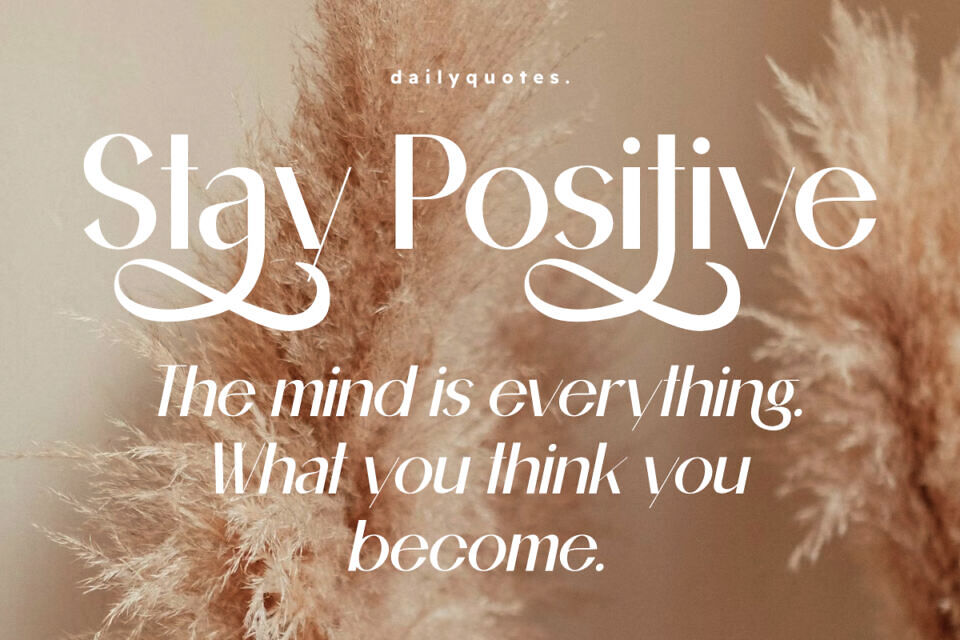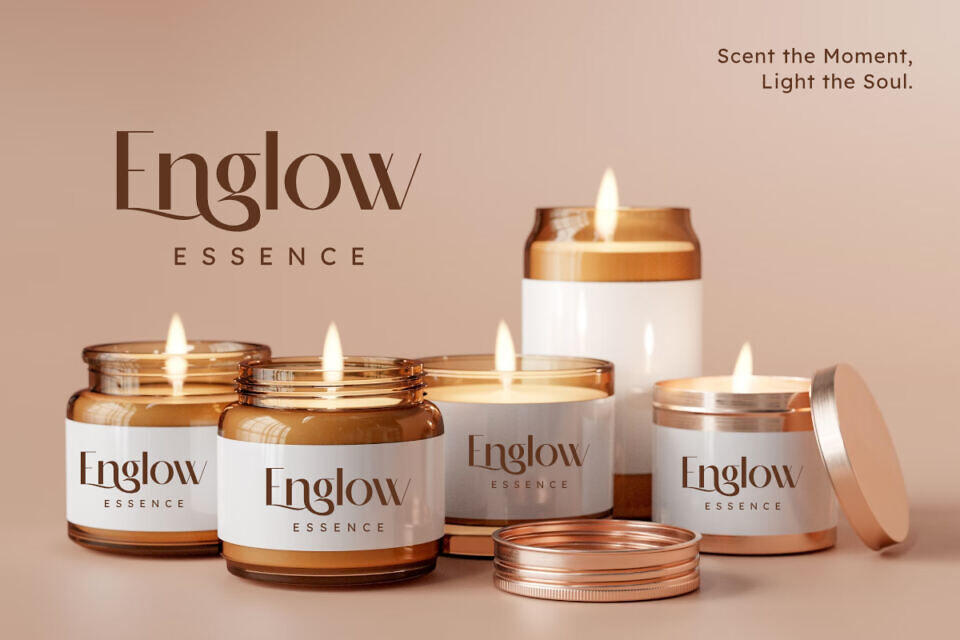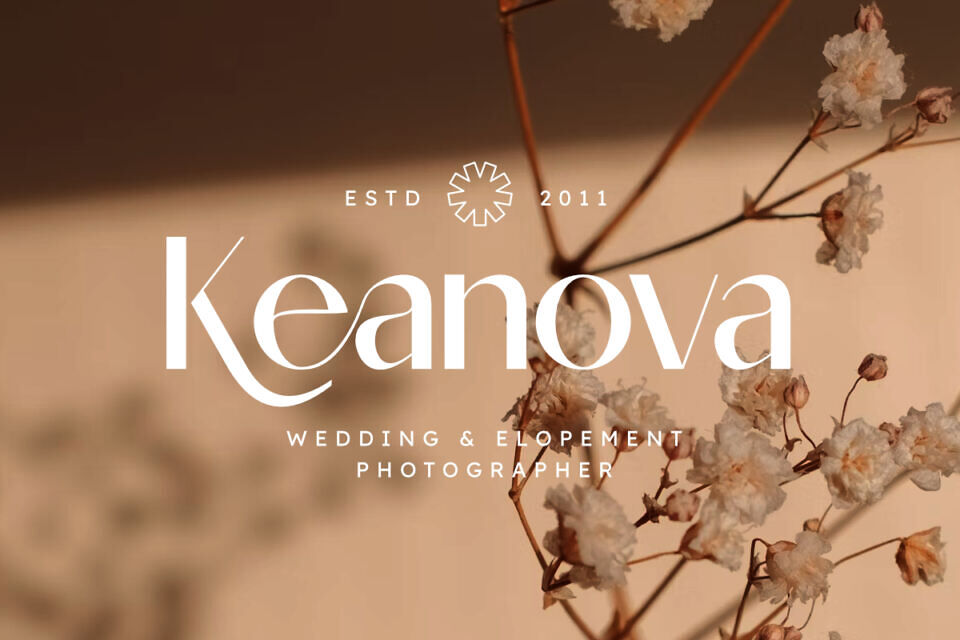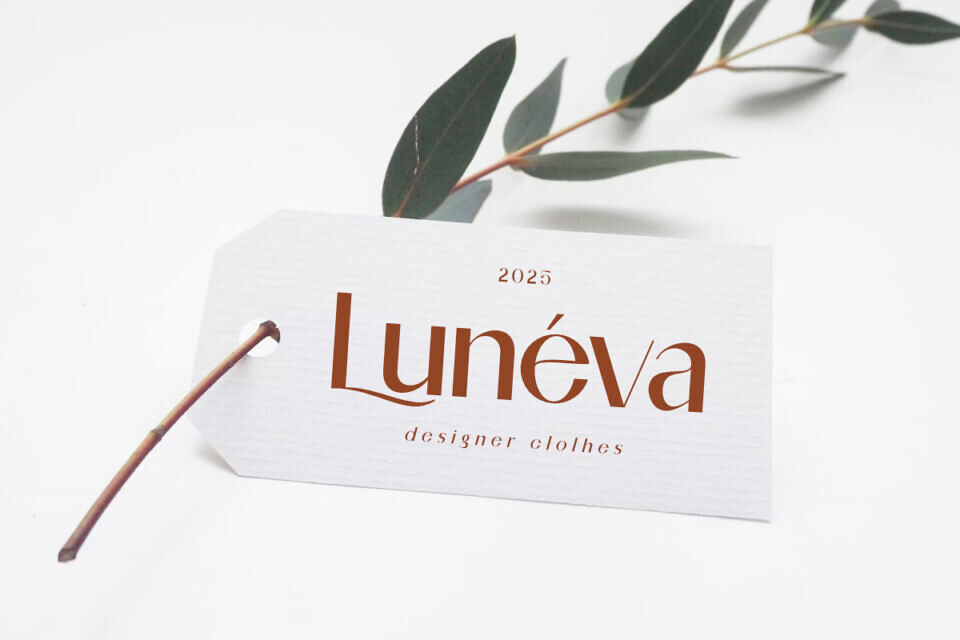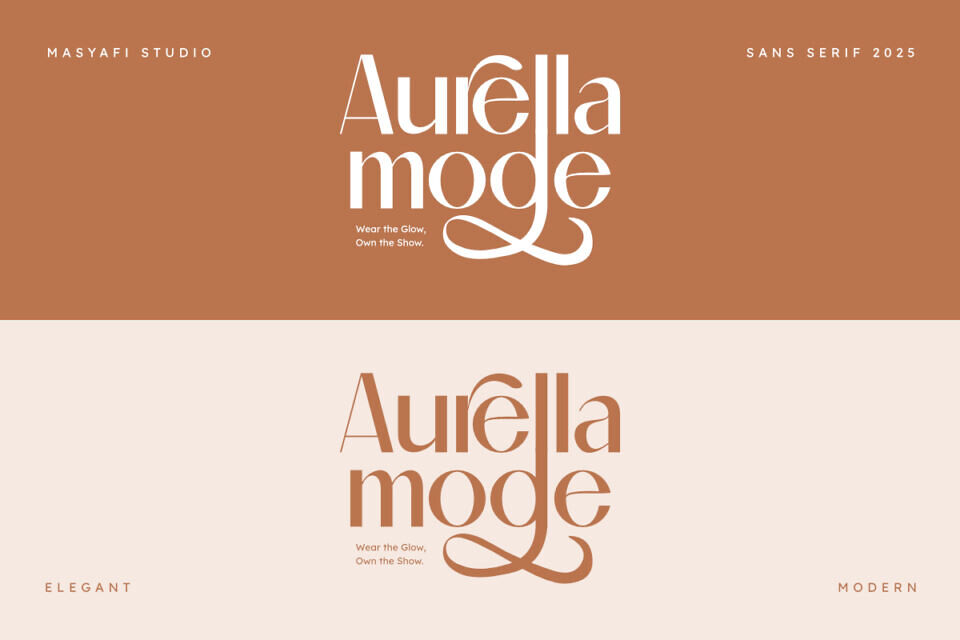
Hydrating Cream Font
Introducing Hydrating Cream, a modern sans serif typeface designed to bring elegance and sophistication to your creative projects.
Crafted by Masyafi Studio, this font blends clean, bold lines with graceful curves, making it perfect for beauty branding, skincare packaging, fashion editorials, and social media content.